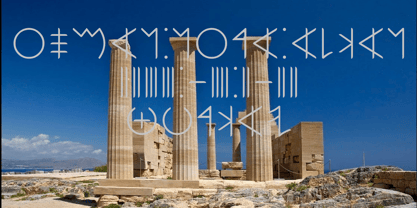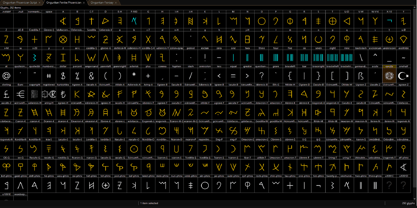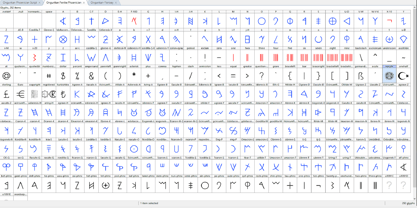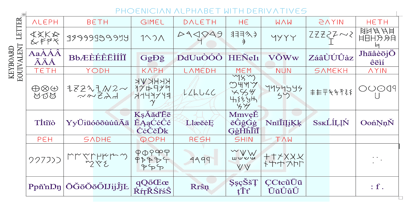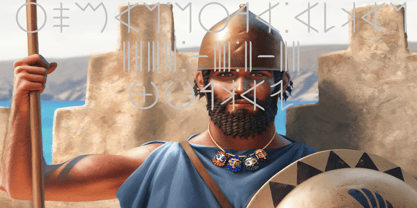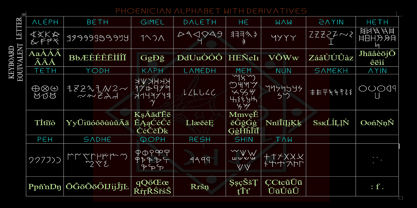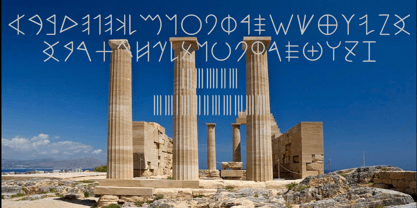
Ongunkan Fenike Phoenician
The Ongunkan Fenike Phoenician Font Family was designed by Osman Nuri ALKAN and published by Runic World Tamgacı. Ongunkan Fenike Phoenician contains 1 styles. More about this family
This font is a Latin-based font developed for the Phoenician script, one of the ancient alphabets. It includes Unicode representations and their derivatives. It has also been added as a Unicode font. You can use Unicode characters both by pressing Latin keys and using the dedicated Phoenician virtual keyboard. The Phoenician alphabet is an abjad (consonantal alphabet) used across the Mediterranean civilization of Phoenicia for most of the 1st millennium BC. It was one of the first alphabets, attested in Canaanite and Aramaic inscriptions found across the Mediterranean basin. In the history of writing systems, the Phoenician script also marked the first to have a fixed writing direction while previous systems were multi-directional, Phoenician was written horizontally, from right to left. It developed directly from the Proto-Sinaitic script used during the Late Bronze Age, which was derived in turn from Egyptian hieroglyphs. The Phoenician alphabet was used to write Canaanite languages spoken during the Early Iron Age, sub-categorized by historians as Phoenician, Hebrew, Moabite, Ammonite and Edomite, as well as Old Aramaic. It was widely disseminated outside of the Canaanite sphere by Phoenician merchants across the Mediterranean, where it was adopted and adapted by other cultures. The Phoenician alphabet proper was used in Ancient Carthage until the 2nd century BC, where it was used to write the Punic language. Its direct descendant scripts include the Aramaic and Samaritan alphabets, several Alphabets of Asia Minor, and the Archaic Greek alphabets.